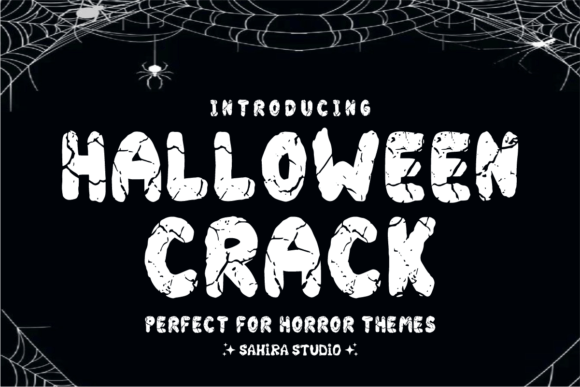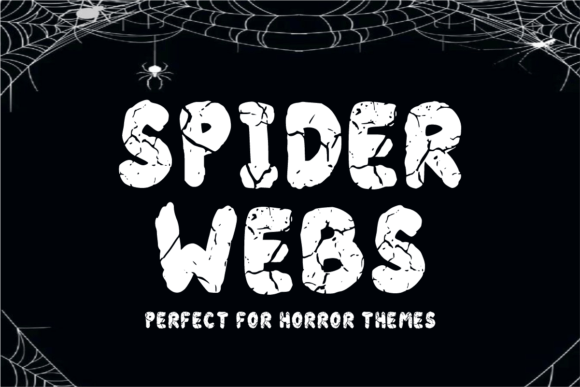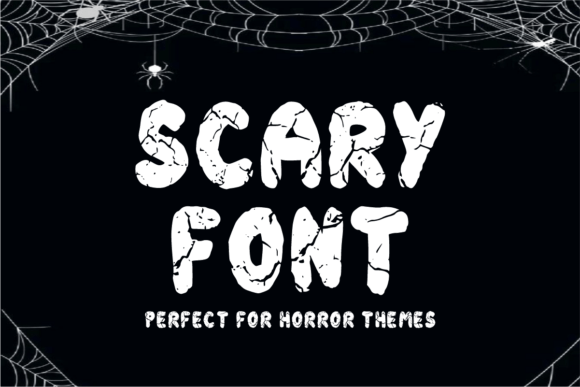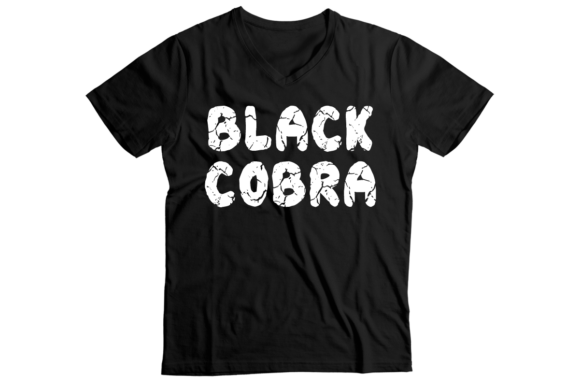
The Perfect Font for a Scream-Worthy Halloween Design
As the sun sets on October 31st, designers everywhere are itching to create their most spine-tingling Halloween projects yet. But, we all know the struggle of finding the right font to capture that eerie atmosphere. That’s where the Halloween Crack Font comes in – a bold, modern, and uniquely textured font that screams horror while keeping strong legibility.
Perfect for all your Halloween-themed projects, this cracked-textured font is a game-changer for designers looking to add a touch of the macabre to their designs. Whether you’re creating haunted house flyers, eerie movie titles, or creepy merchandise, the Halloween Crack Font is sure to turn your designs into bone-chilling, scream-worthy creations.
Halloween Crack Font Key Features
- Font Family: Halloween Crack Font is a unique, hand-drawn font family with a spooky and festive theme.
- Unique Characteristics: Features intricate, hand-drawn details and bold lines that evoke a sense of mystery and excitement, perfect for Halloween-themed designs.
- Character Set: Includes a wide range of characters, including uppercase and lowercase letters, numbers, punctuation marks, and special symbols.
Halloween Crack Font Review
Overall, I think the Halloween Crack Font has some great elements, but it’s not without its flaws. ✨
- Unique Design: The font’s cracked and distressed look is perfect for Halloween-themed projects.
- Playful Feel: The font’s quirky and whimsical nature makes it suitable for children’s party invitations or spooky decorations.
- Customization Options: The font is highly customizable, allowing users to adjust the crack intensity and color.
- Readability: The font can be difficult to read, especially for long texts. ⚠️
- Limited Font Family: The font only comes in one style, which may limit its use in certain projects.
- Glitchy Feel: While the font’s distressed look is intentional, it can sometimes feel glitchy or unprofessional.
Overall, the Halloween Crack Font is a fun and unique addition to any project, but it may not be suitable for all types of content. With some careful use and customization, it can add a spooky touch to your designs.
For the best results, use the Halloween Crack font in bold or italic styles to add emphasis to your text.
Use the font in conjunction with spooky-themed graphics and images to create a cohesive Halloween design.
Halloween party invitations
Halloween-themed social media graphics
Halloween craft project designs
Spooky-themed blog posts and articles